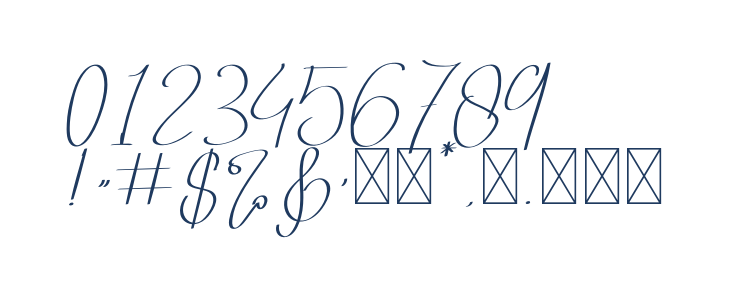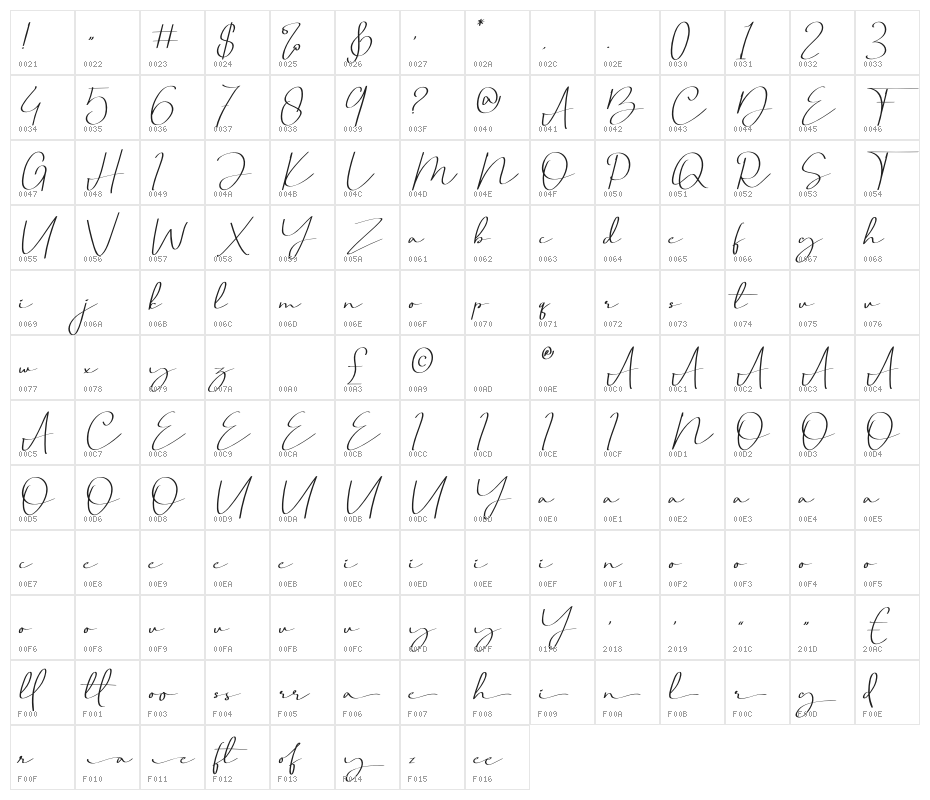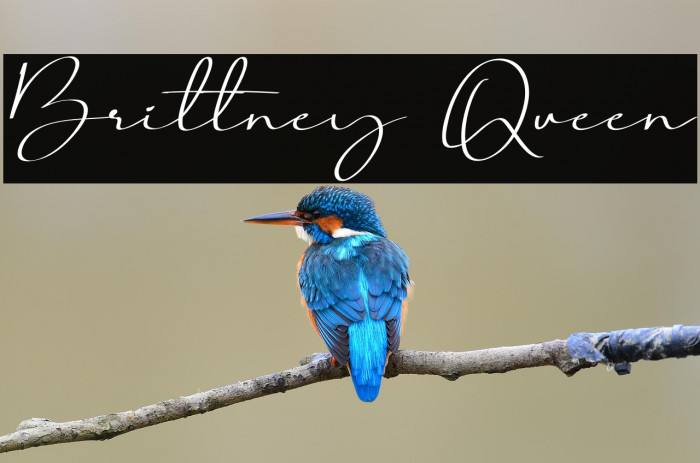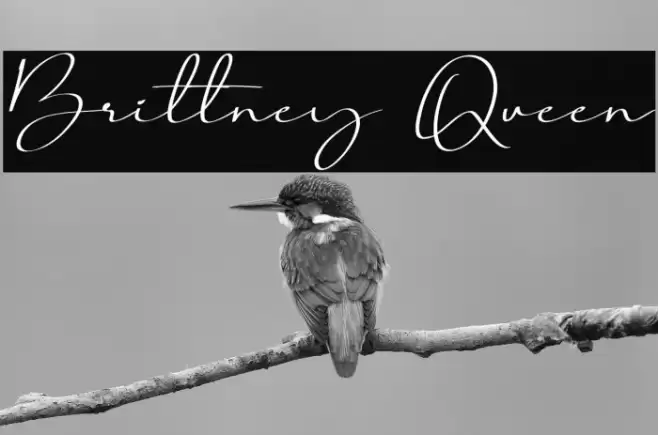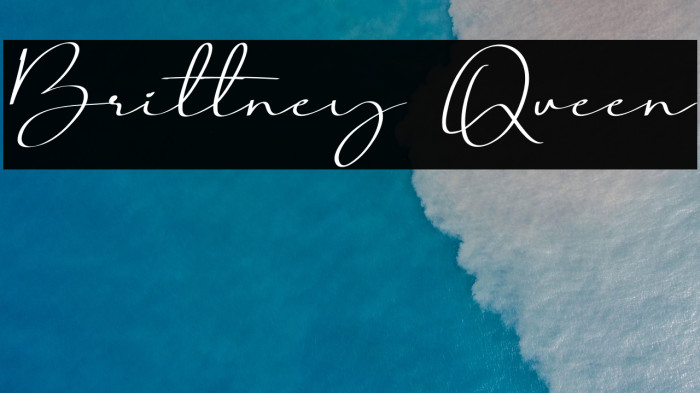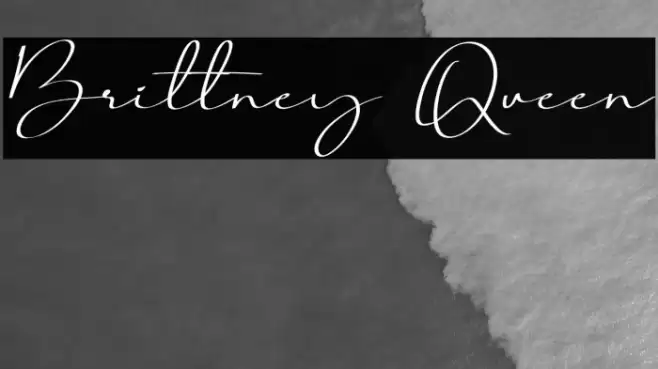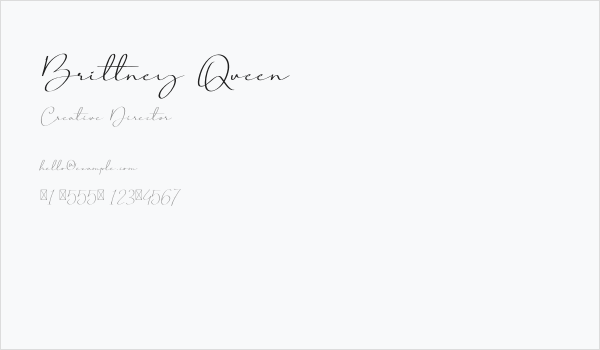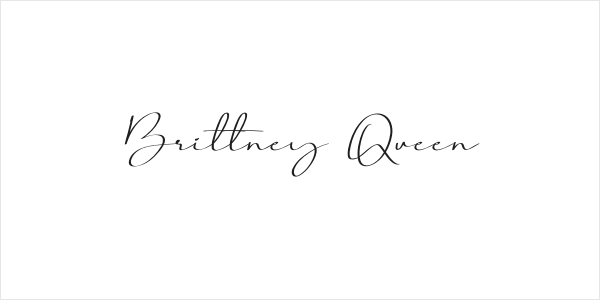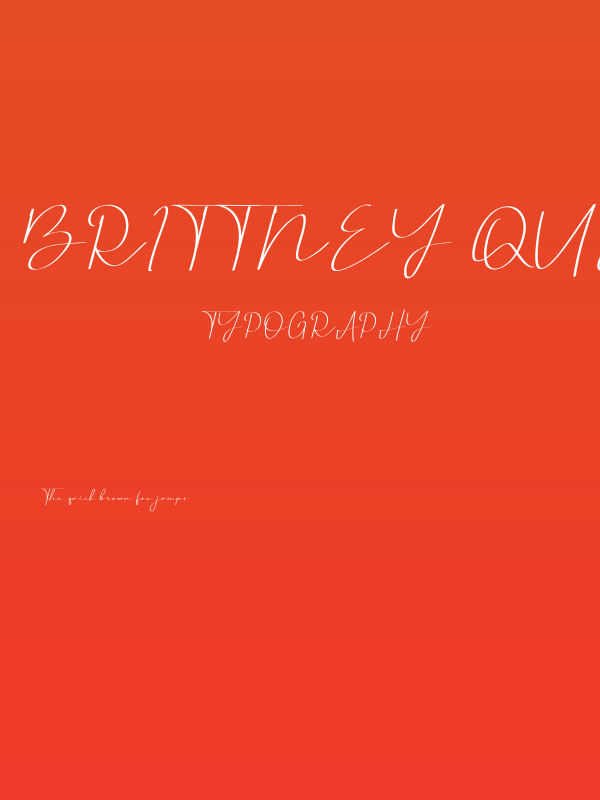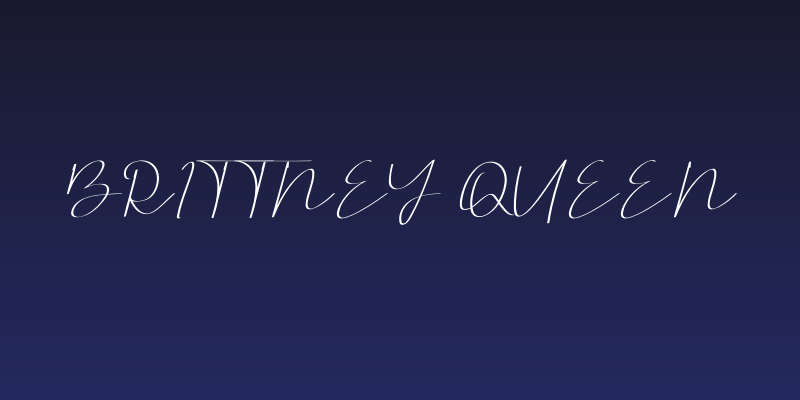
Brittney Queen Font
Brittney Queen Description
This elegant script font features a flowing, cursive style that exudes sophistication and grace. The uppercase letters are slightly more structured, while the lowercase letters have a more fluid and connected appearance, creating a harmonious balance. The numerals are designed with a similar elegance, maintaining the overall aesthetic. The special characters complement the font's style, adding versatility for various design needs. The strokes are consistent in weight, providing a uniform look across all characters. This font is perfect for projects that require a touch of elegance and class.